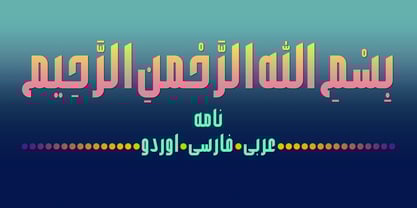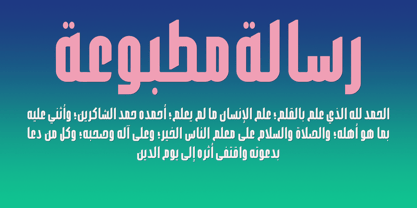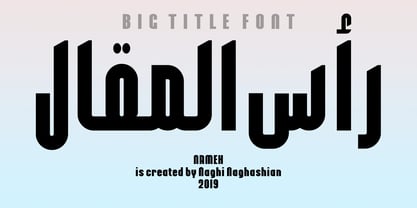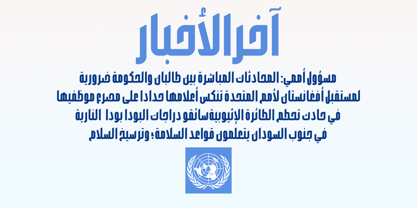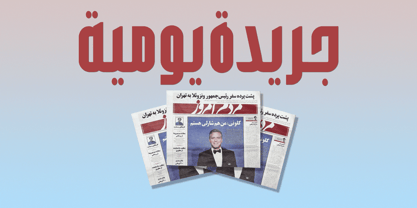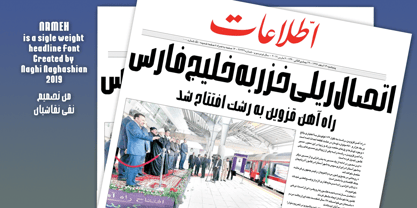
Nameh is a single weight sans-serif headline font designed by Naghi Naghashian. It is a condensed big title font. This font is a contribution to modernize the Arabic typography, gives the font design of Arabic letters real typographic arrangement and provides more typographic flexibility. Nameh supports Arabic, Persian (Farsi) and Urdu. It also includes proportional and tabular numerals for the supported languages. Nameh design fulfills the following needs: A Explicitly crafted for use in electronic media fulfills the demands of electronic communication. B Suitability for multiple applications. Gives the widest potential acceptability. C Extreme legibility not only in small sizes, but also when the type is filtered or skewed, e.g., in Photoshop or Illustrator. Nima’s simplified forms may be artificial oblilqued in InDesign or Illustrator, without any loss in quality for the effected text. D An attractive typographic image. Nameh was developed for multiple languages and writing conventions. Nameh supports Arabic, Persian and Urdu. It also includes proportional and tabular numerals for the supported languages. E The highest degree of calligraphic grace and the clarity of geometric typography.